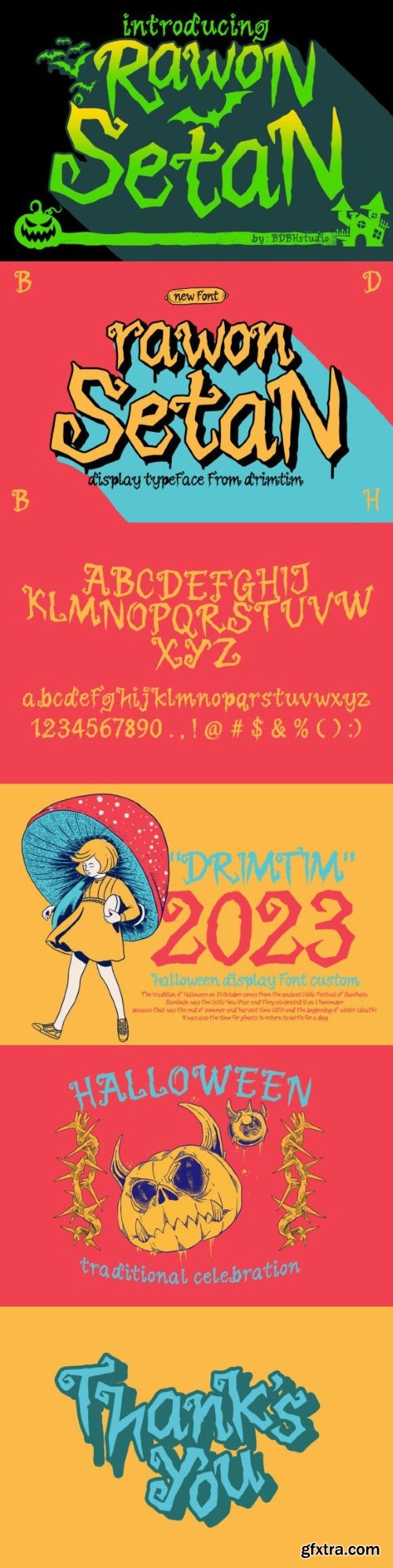
RAWON SETAN Font
Rawon Setan is a cute and strong display font. It embodies playfulness and authenticity and is the perfect choice for any children activity or school project. Add this chunky lettered font to your designs and notice how it makes them come alive!
Rawon Setan is bold and thick lettered display font.
This font is suitable for designs such as t-shirts, sportswear, logos, advertisements, clothing, and more.
Rawon Setan is bold and thick lettered display font.
This font is suitable for designs such as t-shirts, sportswear, logos, advertisements, clothing, and more.